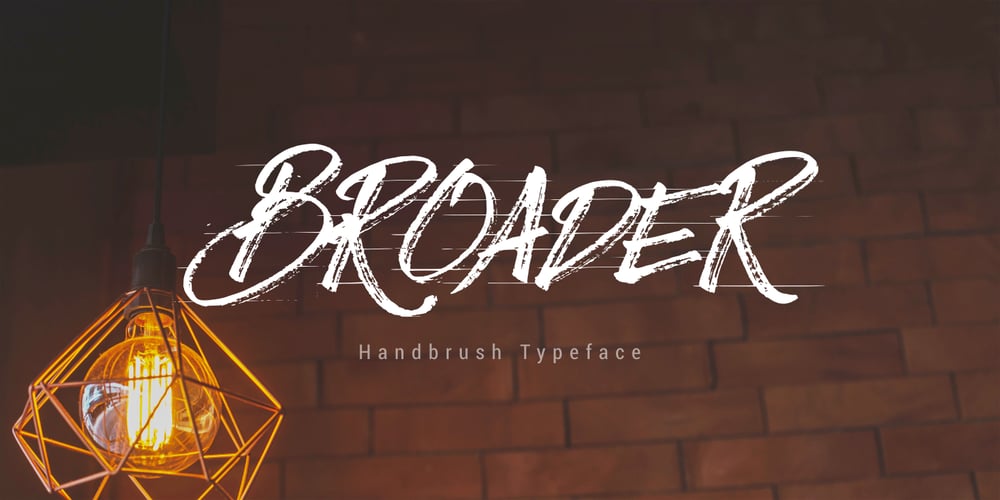
Broader Font Family was designed by Syukur Setiyadi and published by SSI.Scraps. Broader contains 1 styles and family package options. Broader is textured brush font using a contemporary approach to design. Handmade naturally with an irregular baseline, Broader is suitable for a number of display or decorative designs. It supports multilingual with complete punctuation. unique style just with combining the uppercase and lowercase. A true brush font you will love.